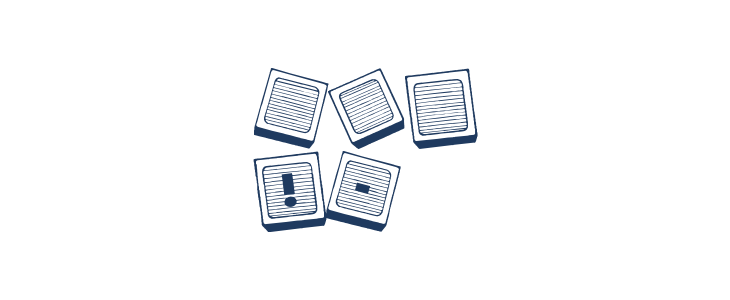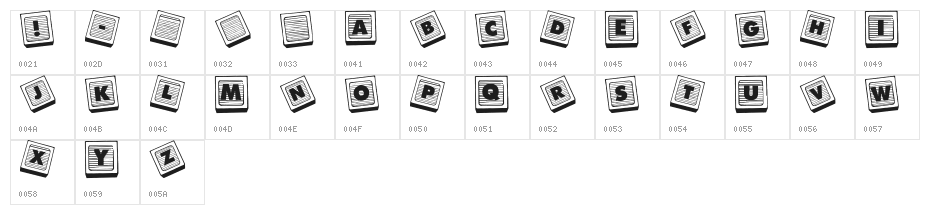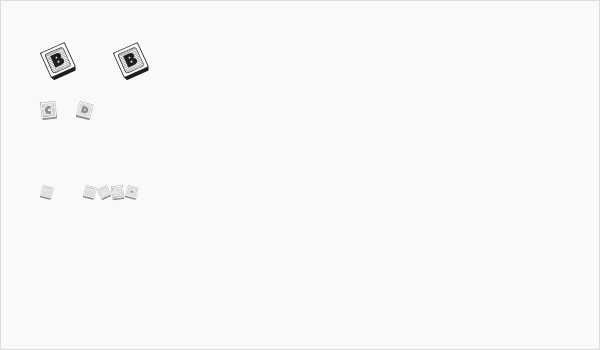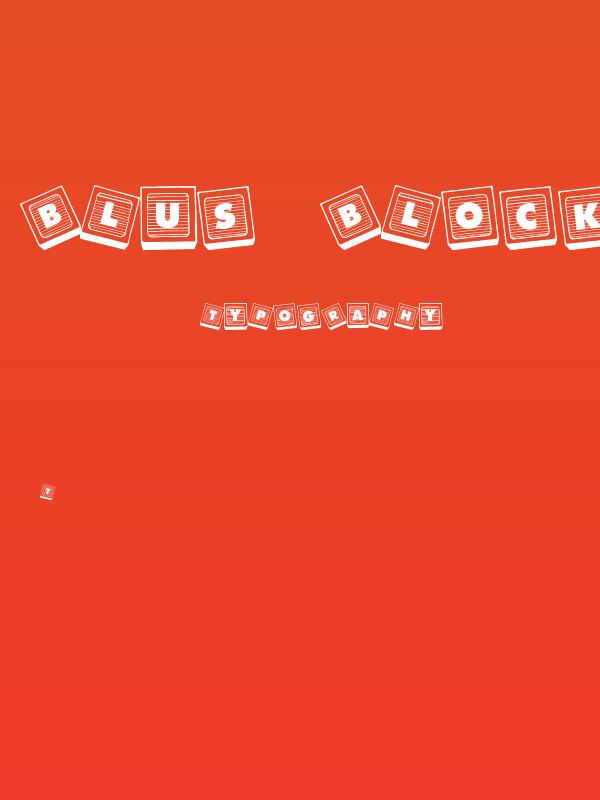
Blu's Blocks Font
Blu's Blocks Description
This font features a playful and bold design, with each letter encapsulated in a three-dimensional block. The letters are uppercase and have a strong, solid appearance, reminiscent of children's building blocks. The font's style is both fun and eye-catching, making it ideal for projects that require a touch of whimsy and creativity. The blocks have a slight shadow, adding depth and dimension to the overall look. The letters are evenly spaced within their blocks, ensuring readability while maintaining the playful aesthetic.